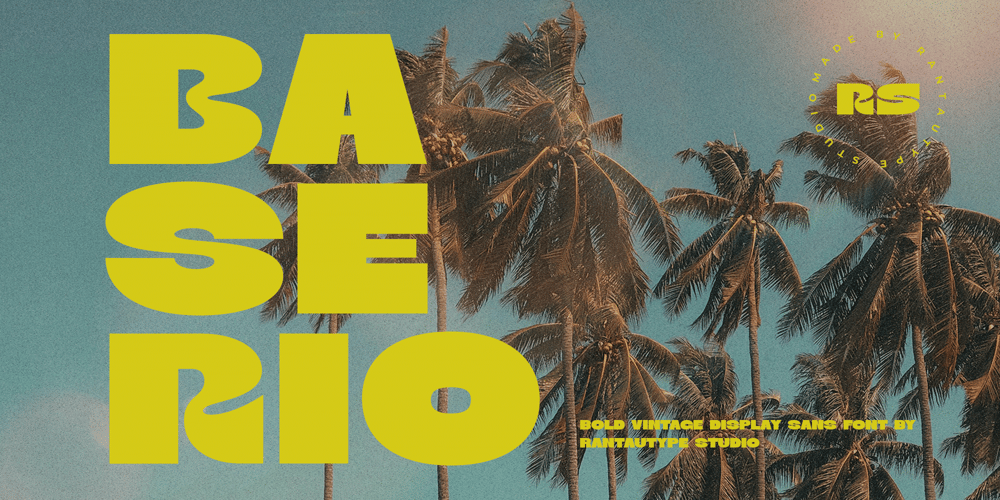
Baserio Font Family was designed by Yudi Pratama Chandra and published by RantauType. Baserio contains 2 styles and family package options. Baserio is a new tropical vintage sans serif font inspire by a strong and bold shape. Baserio is a perfectly choice for any creative endeavor, chic, lifestyle design such as logotype, advertisements, watermark on photography, stationery, branding project, display and magazine, invitation, corporate brand, product design, label, business project and many other project with modern touch.What you have: Standart Glyphs Numberial and Functional Ligature and alternate Works on PC & Mac Simple installations Accessible in Adobe Illustrator, Adobe Photoshop, Adobe InDesign, even work on Microsoft Word. Fonts include multilingual support for: Afrikaans, Albanian, Basque, Bemba, Bena, Breton, Catalan, Chiga, Cornish, Danish, Dutch, English, Estonian, Filipino, Finnish, French, Galician, German, Icelandic, Indonesian, Irish, Italian, Kinyarwanda, Luxembourgish, North, Norwegian, Portuguese, Romansh, Rombo, Rundi, Scottish, Gaelic, Sena, Shambala, Shona, Soga, Somali, Spanish, Swahili, Swedish, Swiss, German.Thank you for your purchase!Hope you enjoy with our font!